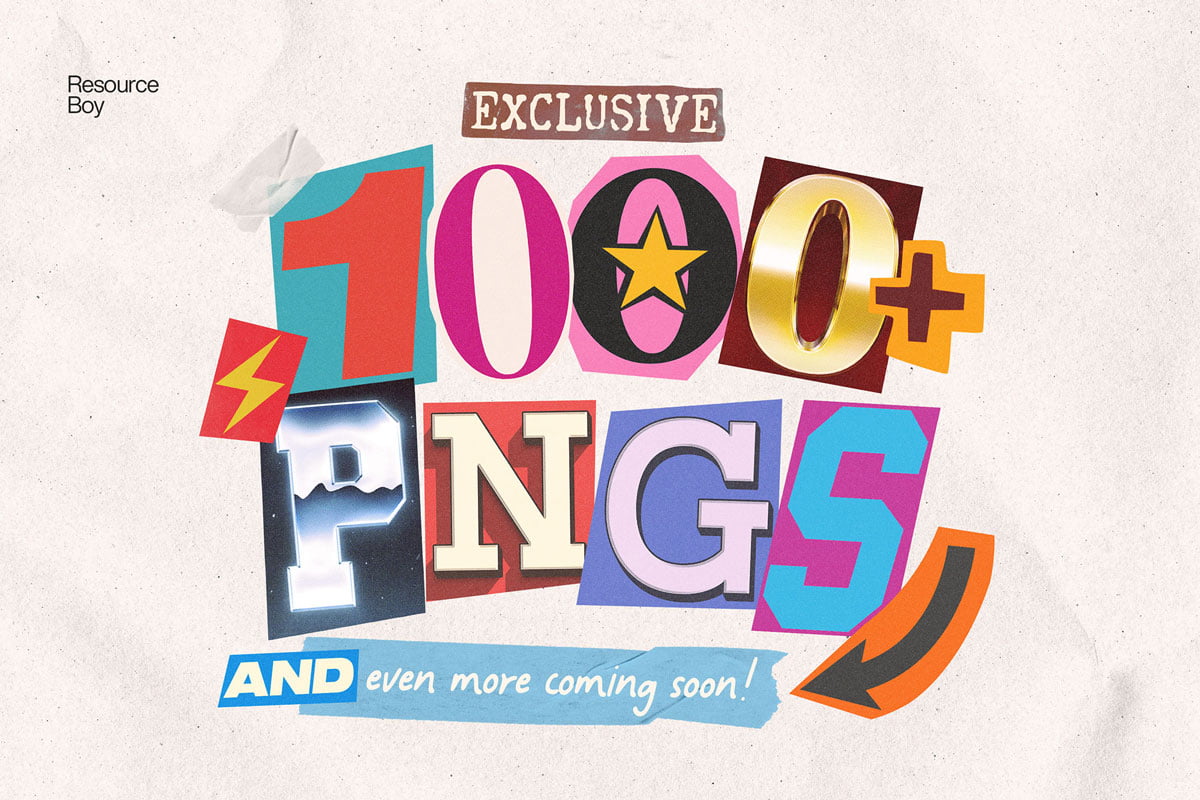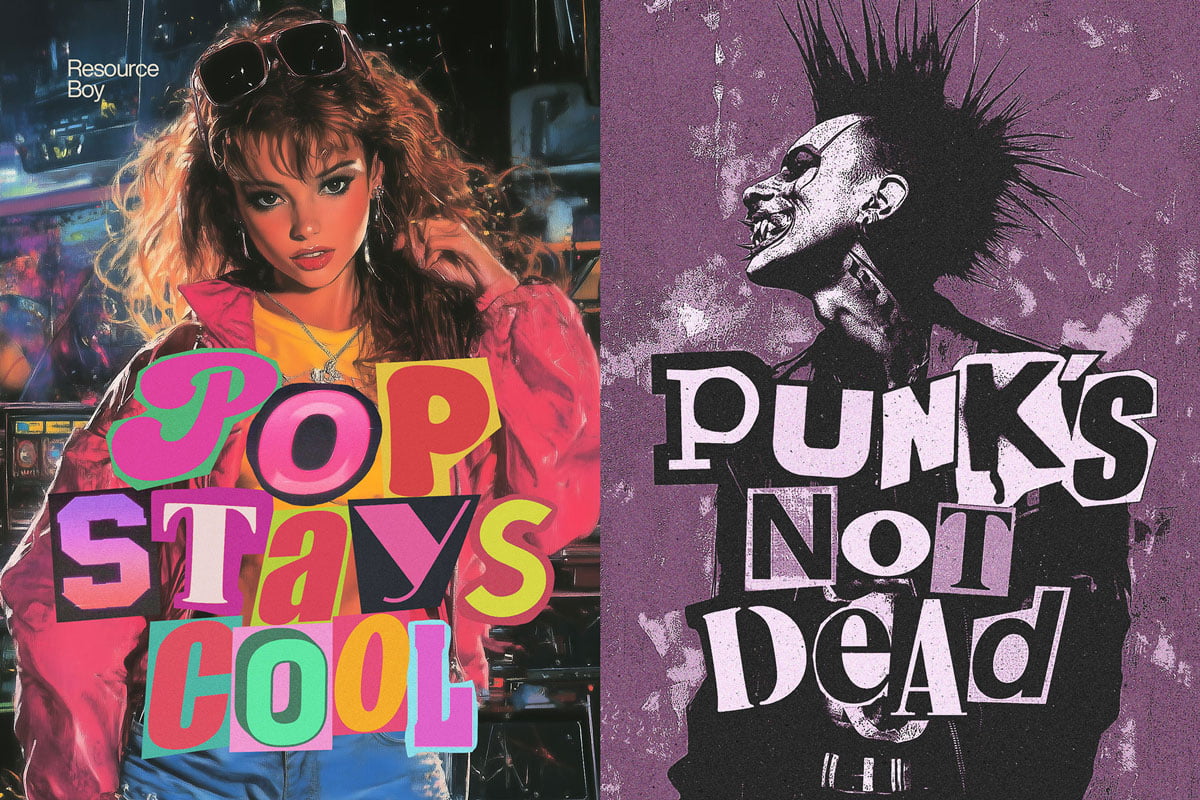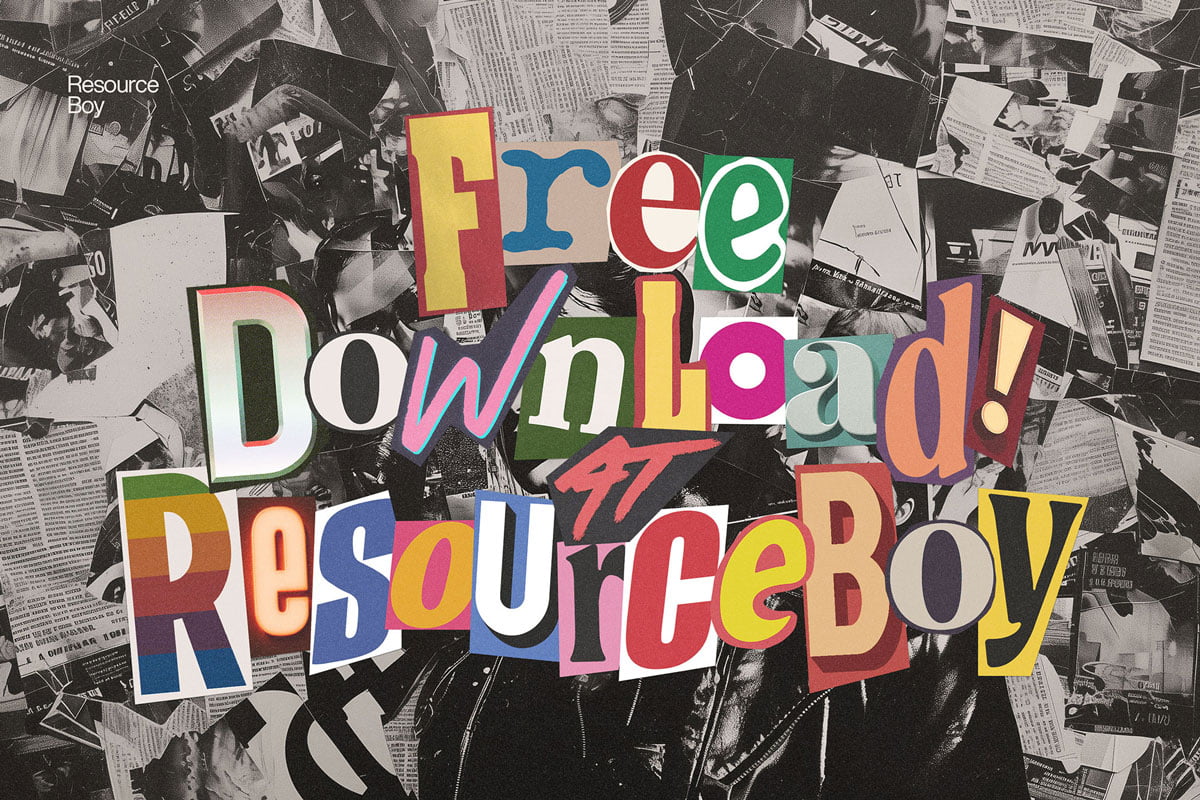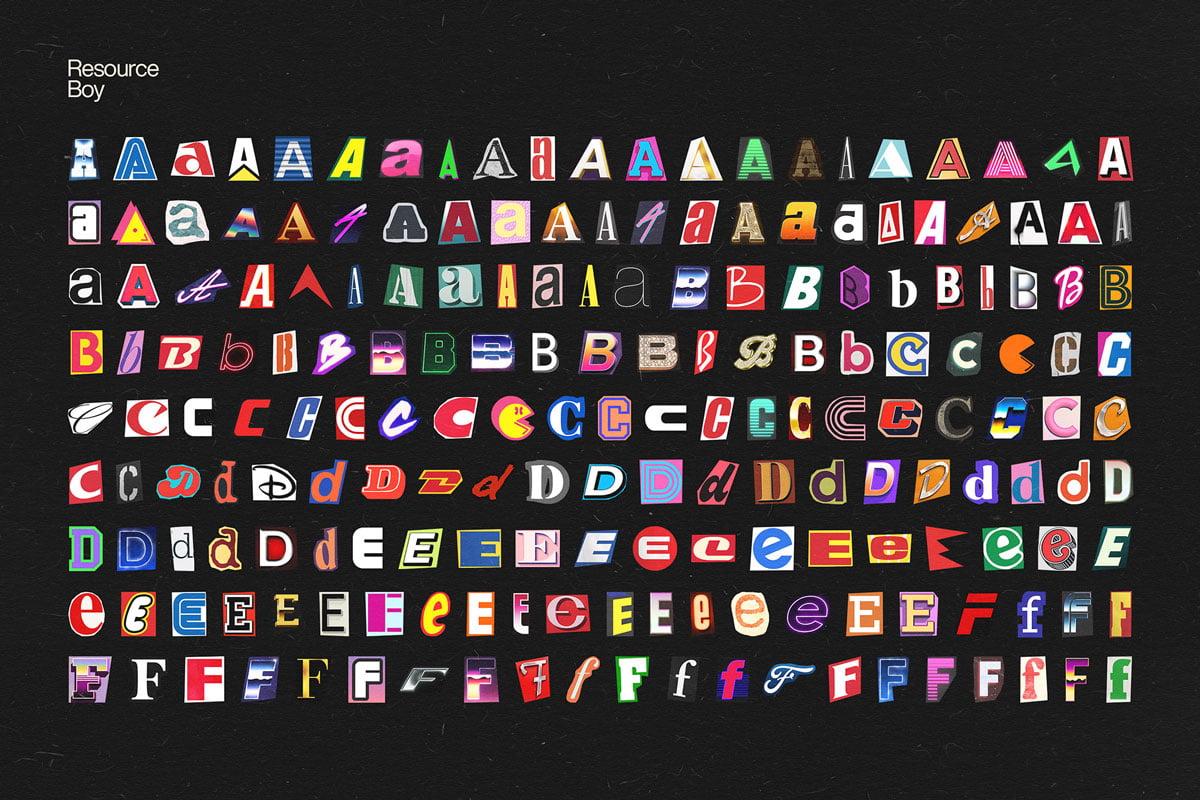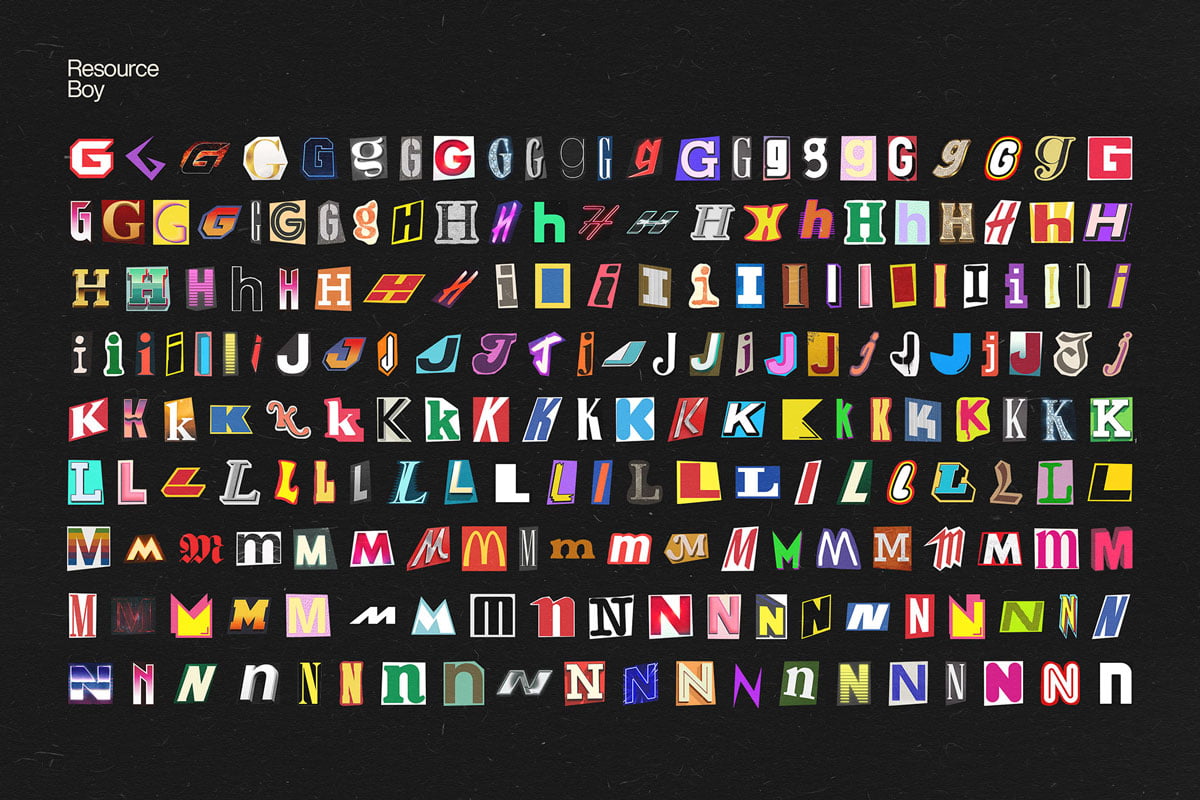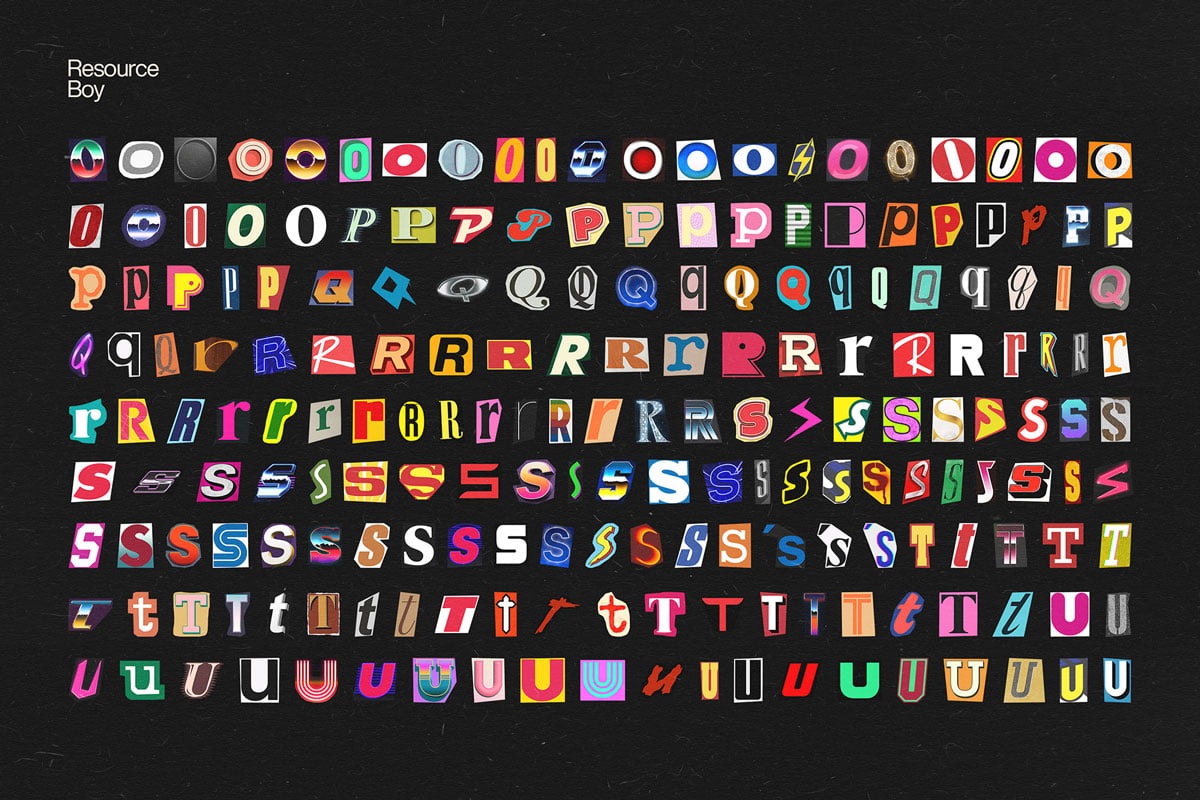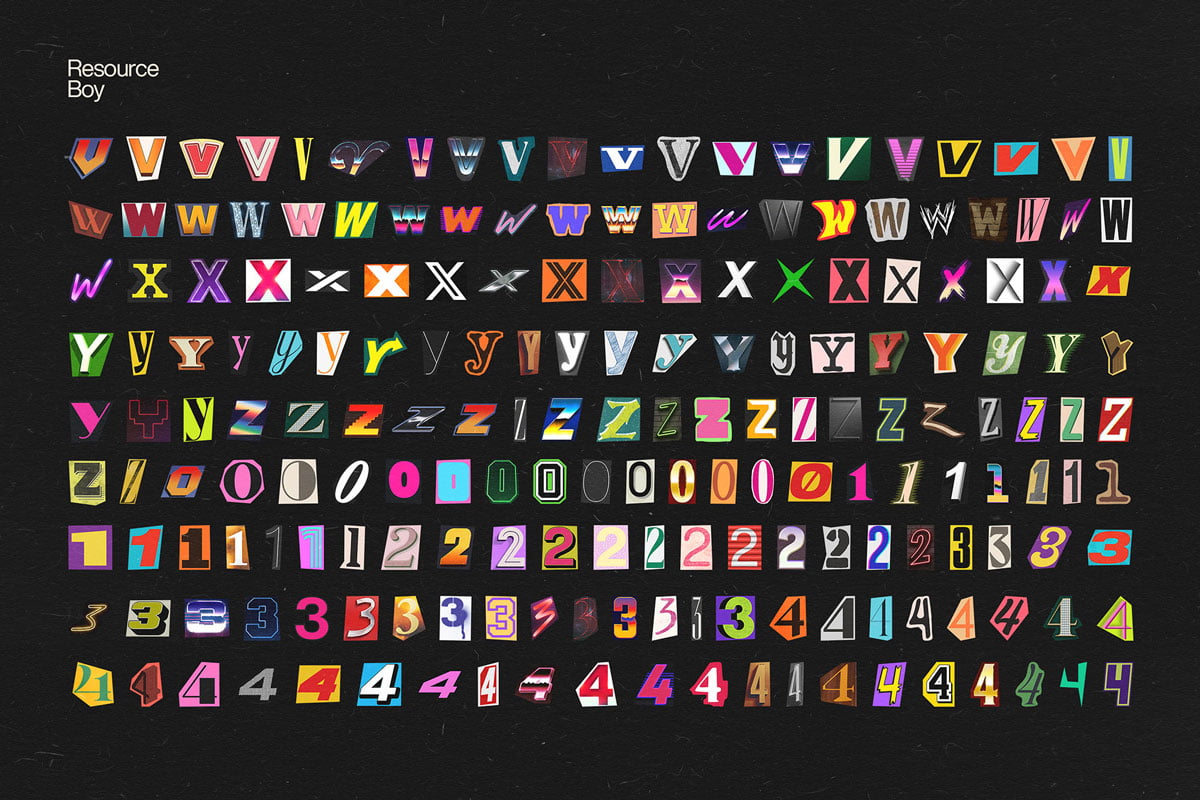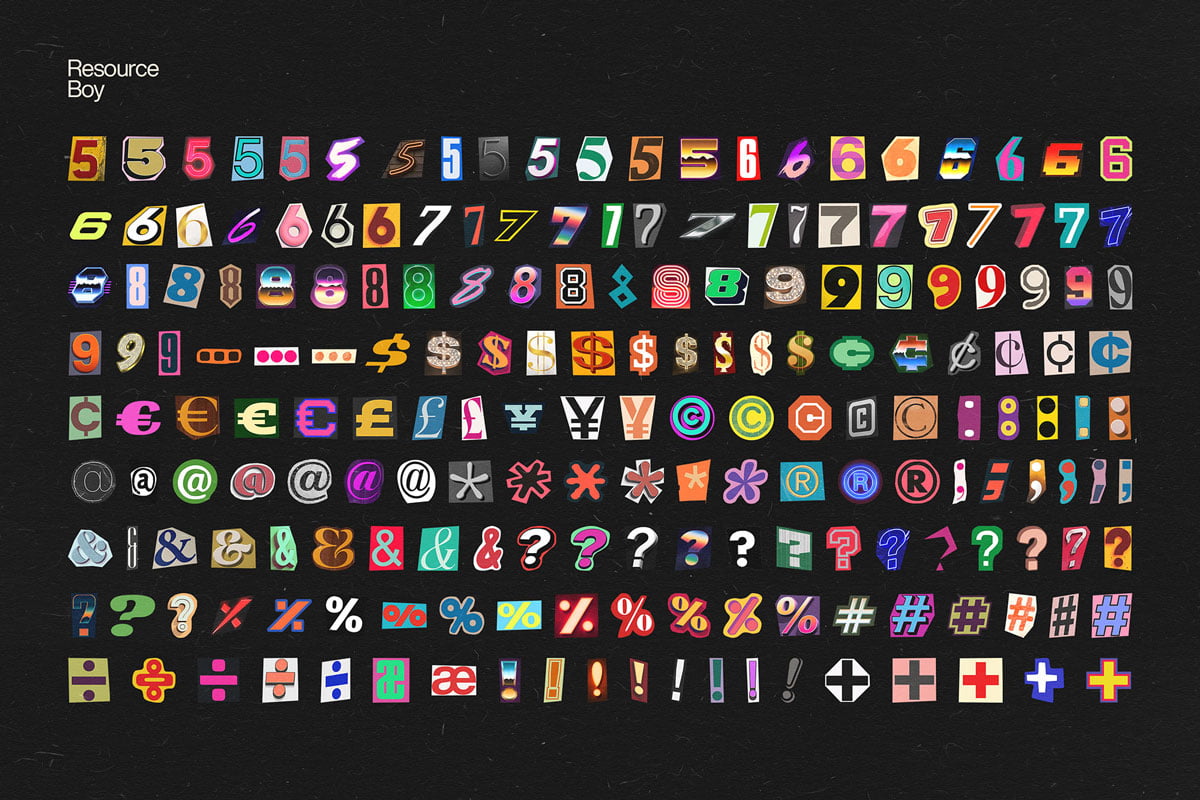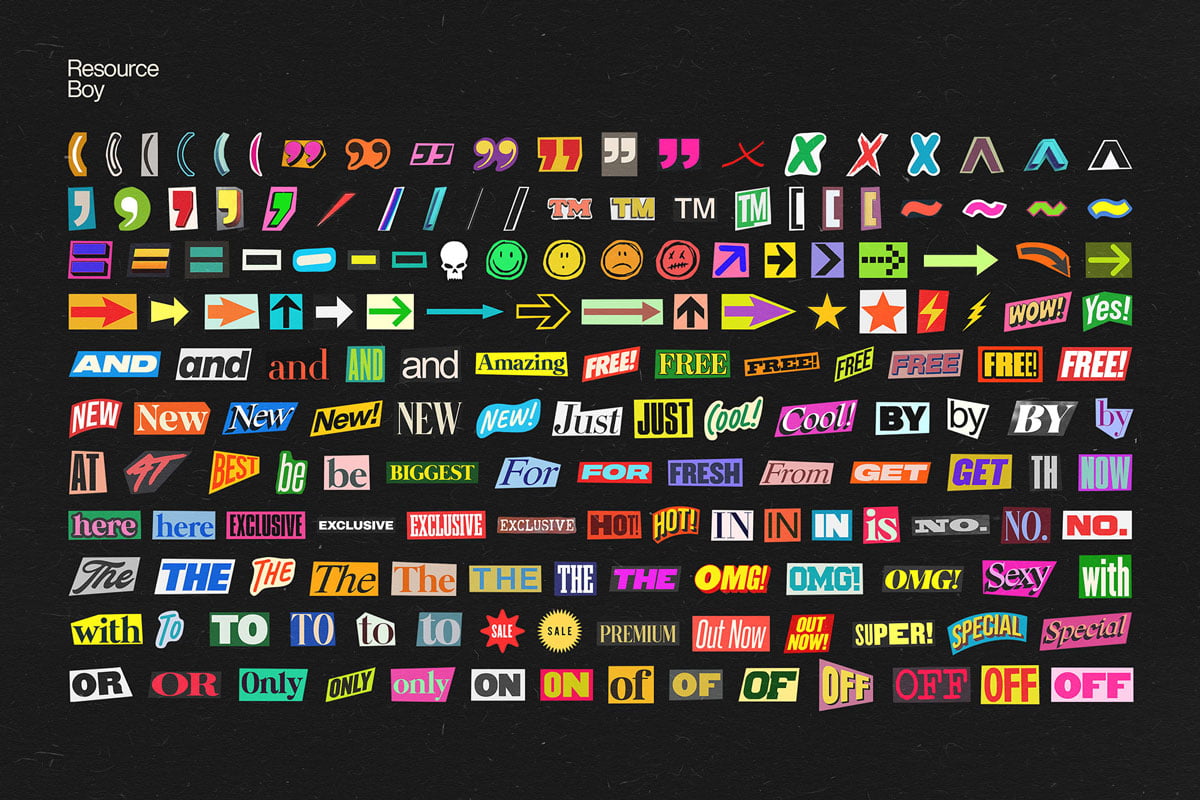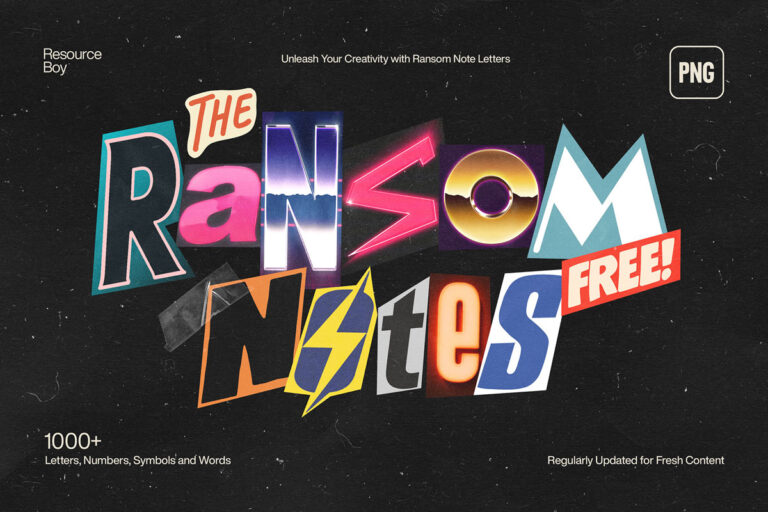
Your eyes will get used to anything. 3D or 2D, bold or thin, lowercase or capitals, freshly brushed or faded over time. After the first couple of letters, there’s usually not much to be impressed by. But that’s not the case with ransom notes letters, especially if it’s the finest collection of it on the net so far. Exceeding every premium product out there and still free for download.
But the fact that it’s free of charge and easy to use doesn’t mean it was easy to design as well. Quite the opposite, it never took us so long to create any of our exclusive assets but this time it did. Over 2 months, can you believe that? That makes sense because it was a matter of 1000+ PNGs with transparent backgrounds, carefully made from scratch: hand-cut, scanned and everything one by one. The result? Now you’ve got the world’s number one free ransom note package to explore and have fun with in your projects.
And about what you can do with this awesome set in front of you. First of all, think of it as a text effect you can edit all you want, with all these diverse colorful alphabet letters, as well as numbers, symbols, and pre-made words, ready for you just to mix them tastefully and get all the credit.